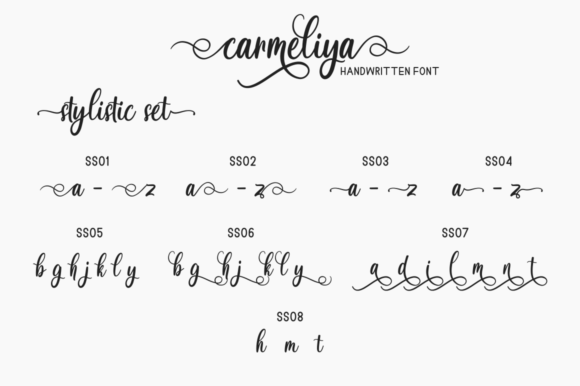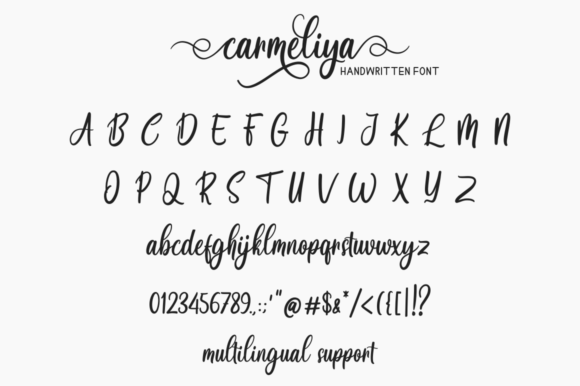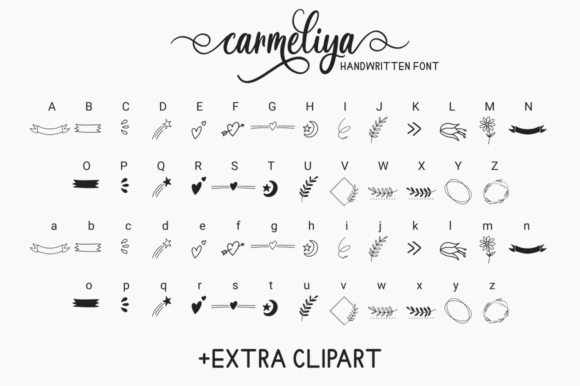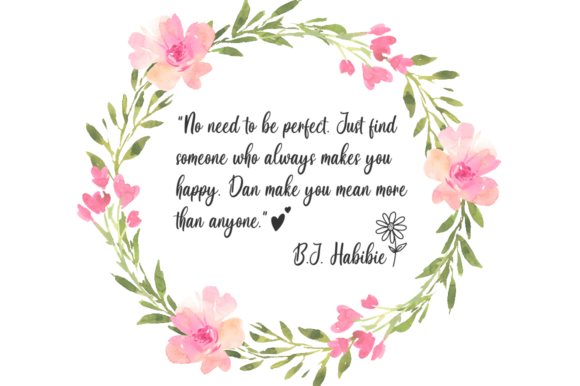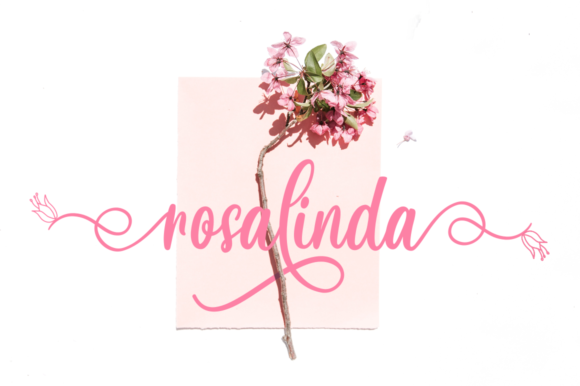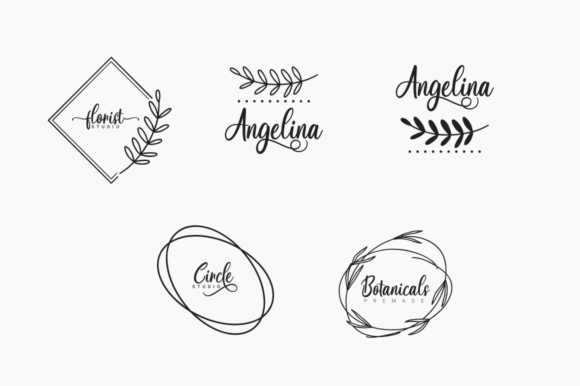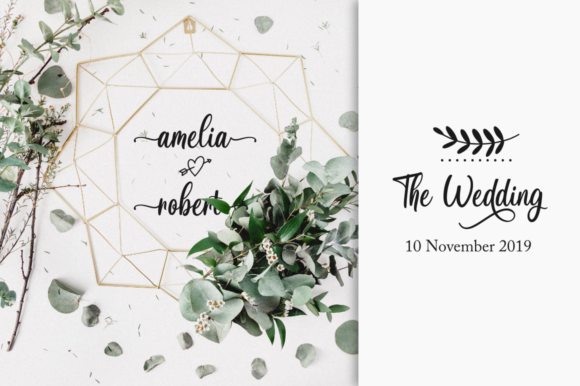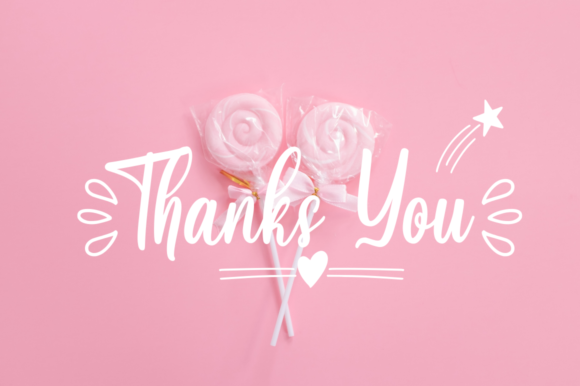
Carmeliya Font
About Carmeliya Font
Carmeliya is a friendly and modern script font with a unique style. It will add a romantic touch to any crafting project!